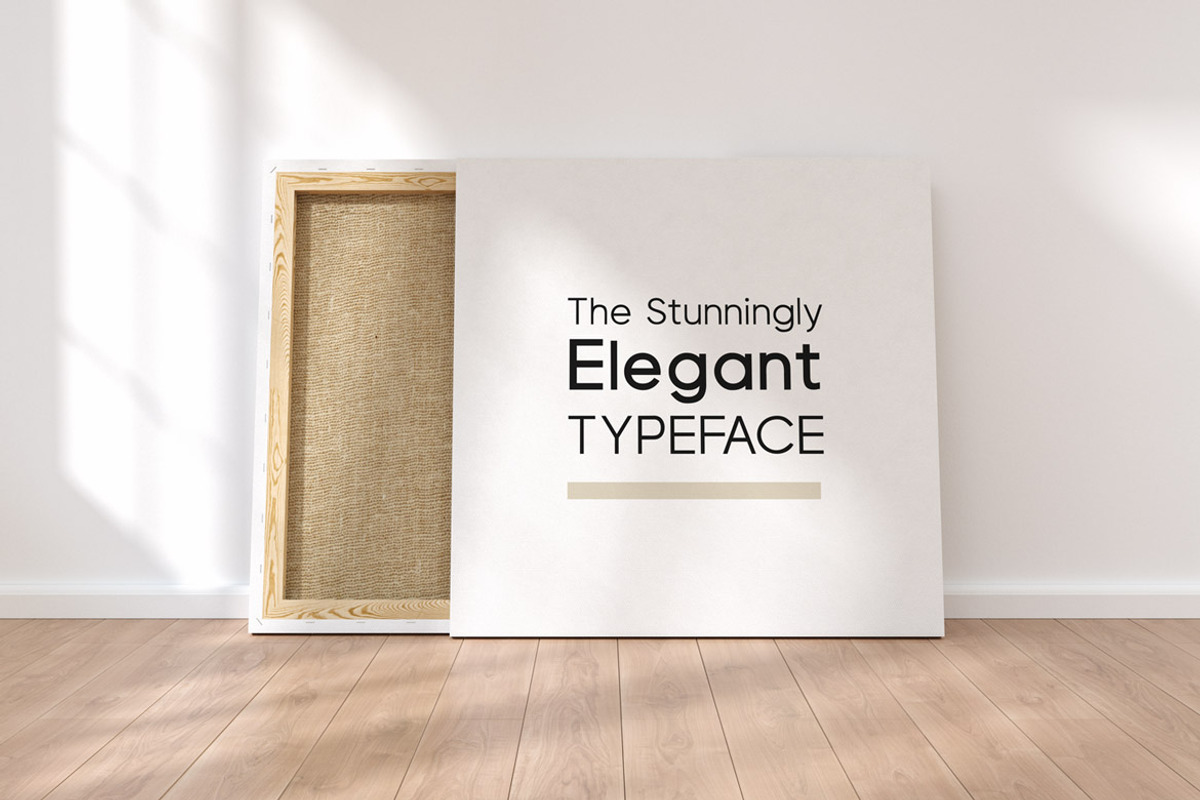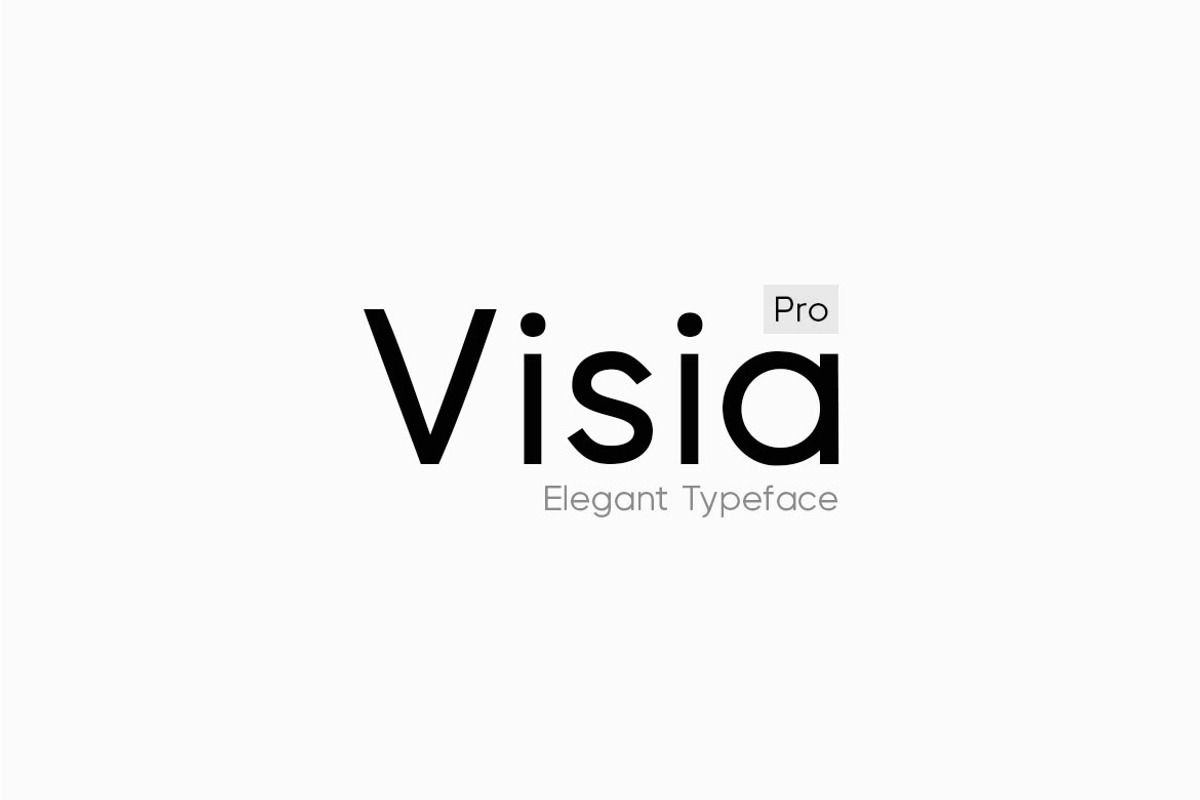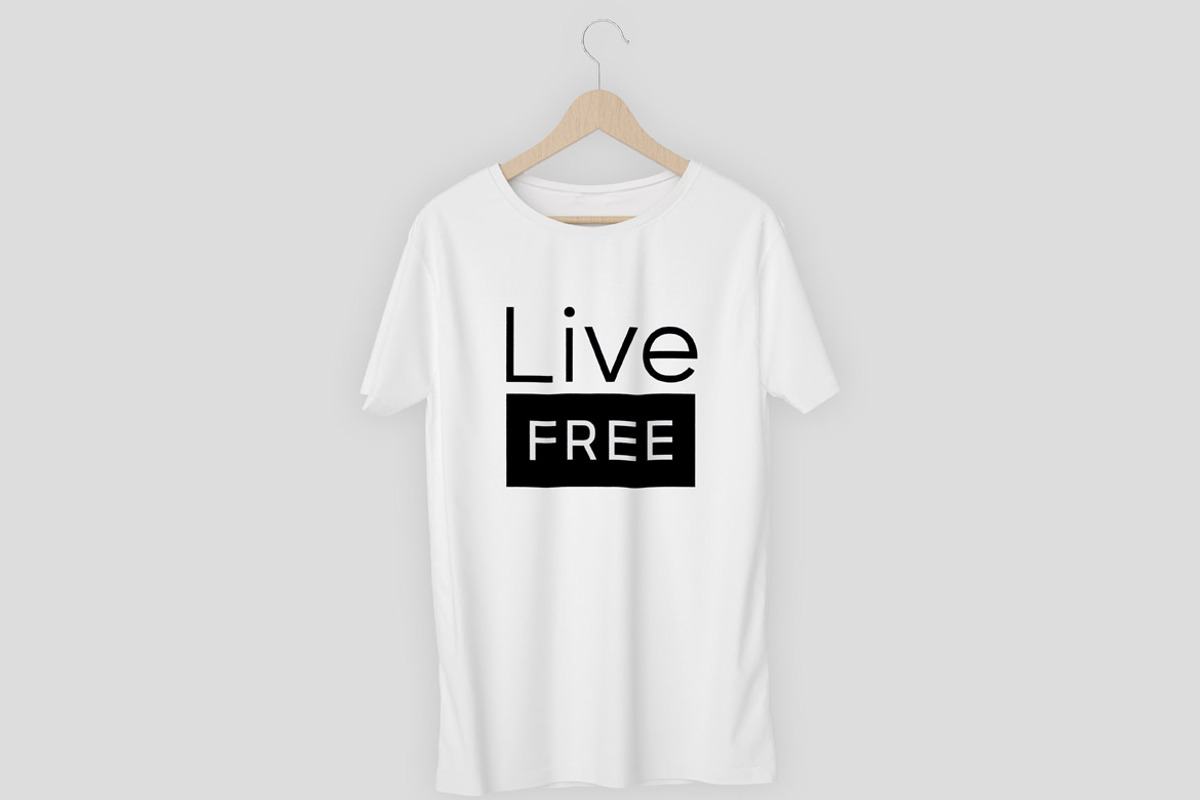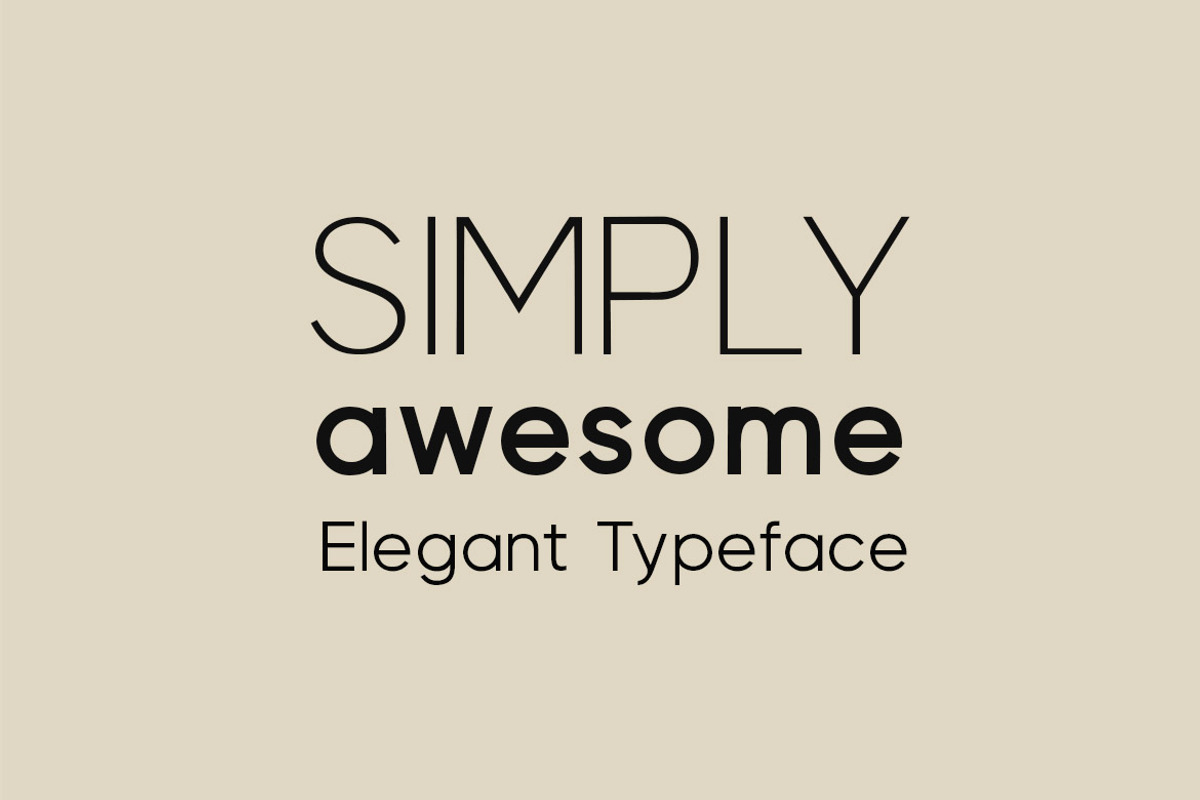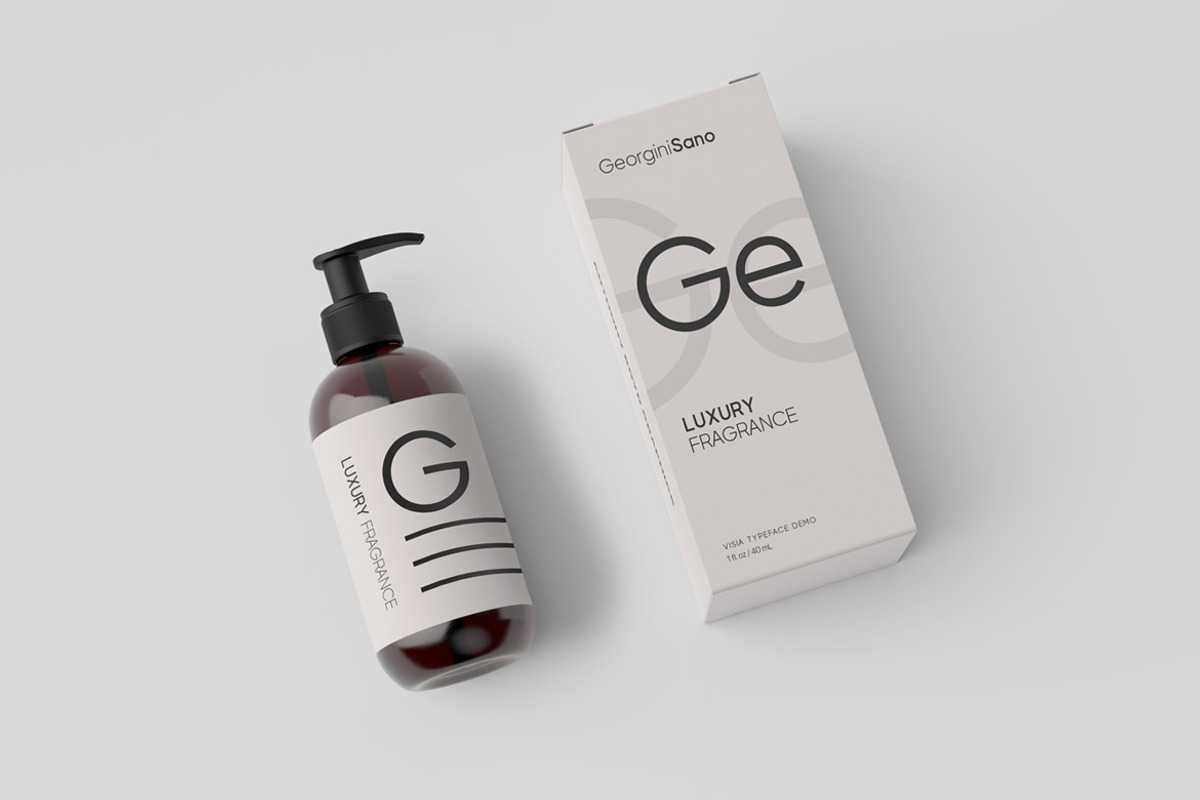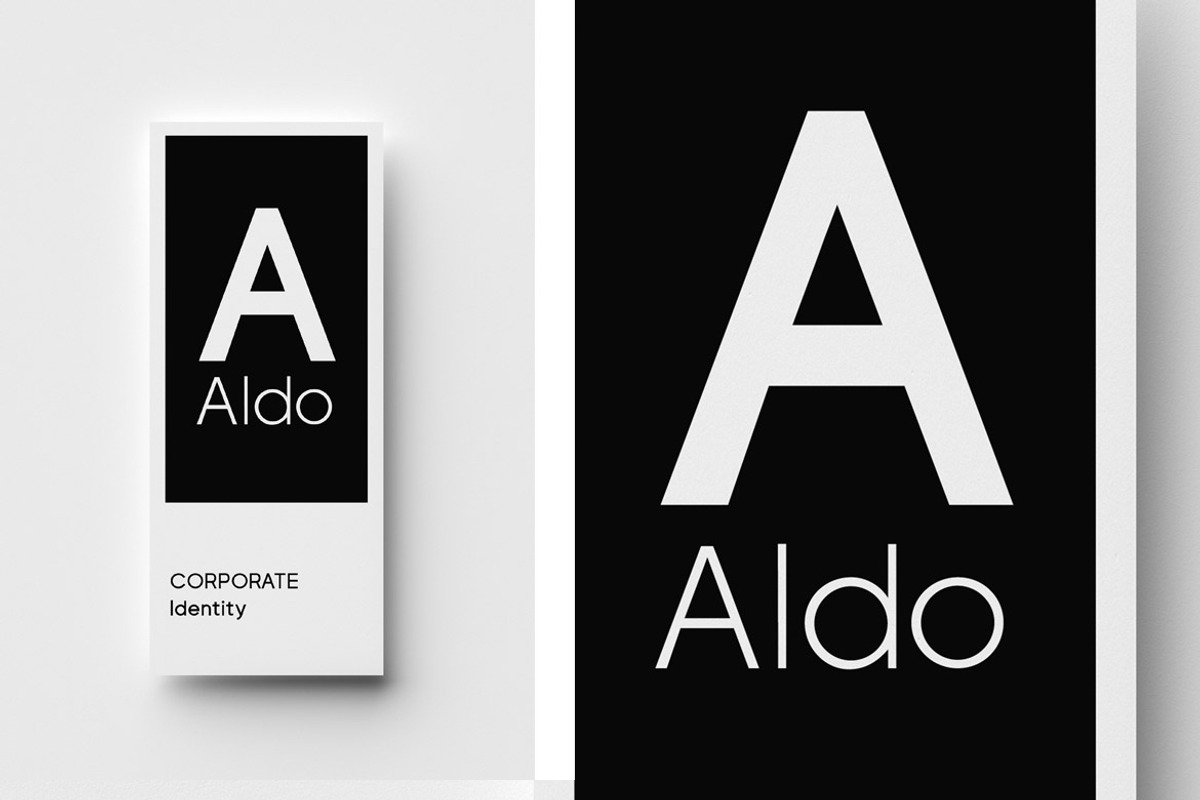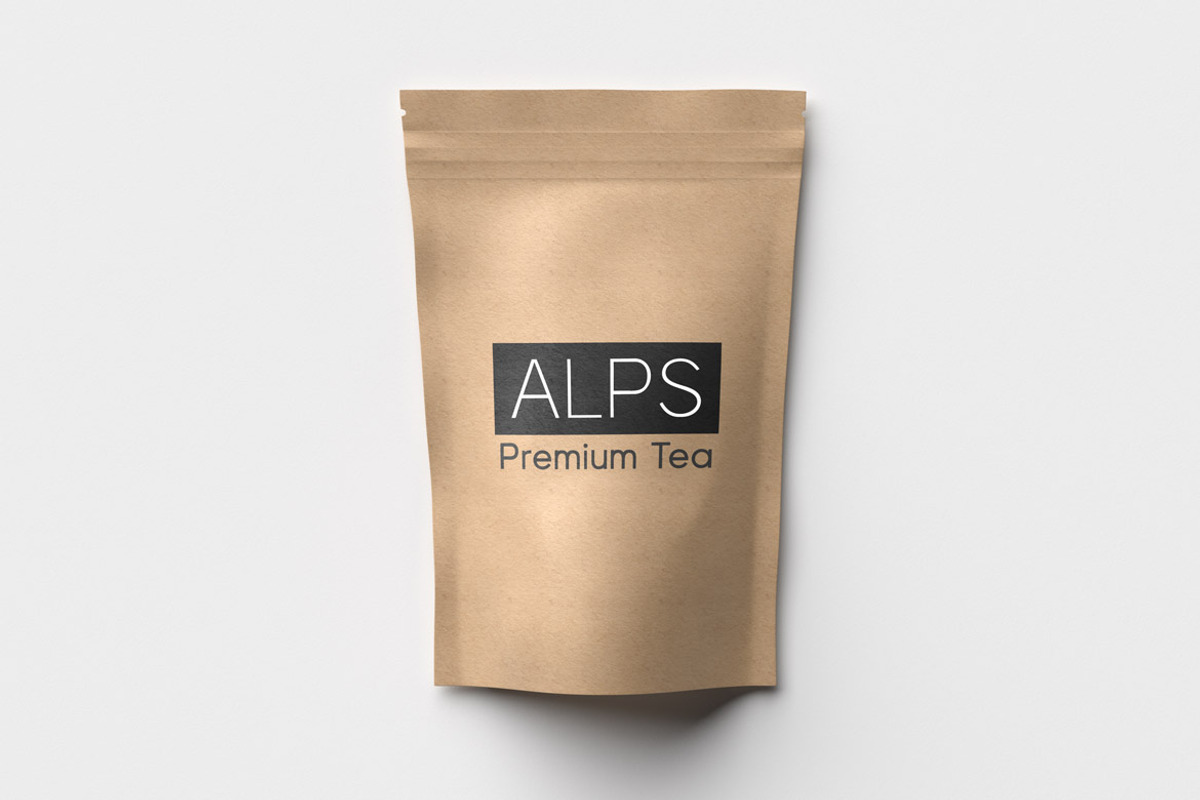
VISIA PRO - Geometric Font Family
VISIA Pro - Our flagship Geometric Sans-Serif typeface, a perfect blend of elegant, minimal and premium design aesthetics at it's level best. A perfect typeface for logotypes, headlines, branding, marketing graphics, corporate identities, all web & print purposes.
7 Weights (Extra Light / Regular / Semi Bold / Bold / Extra Bold / Heavy)
7 Weights of Italic versions (Extra Light / Regular / Semi Bold / Bold / Extra Bold / Heavy)
Major Update v2.0 - Now Available: Each weight includes extended language support including Western European & Central European sets. A total of 258 glyphs are included. We have vastly improved the kerning of this typeface.